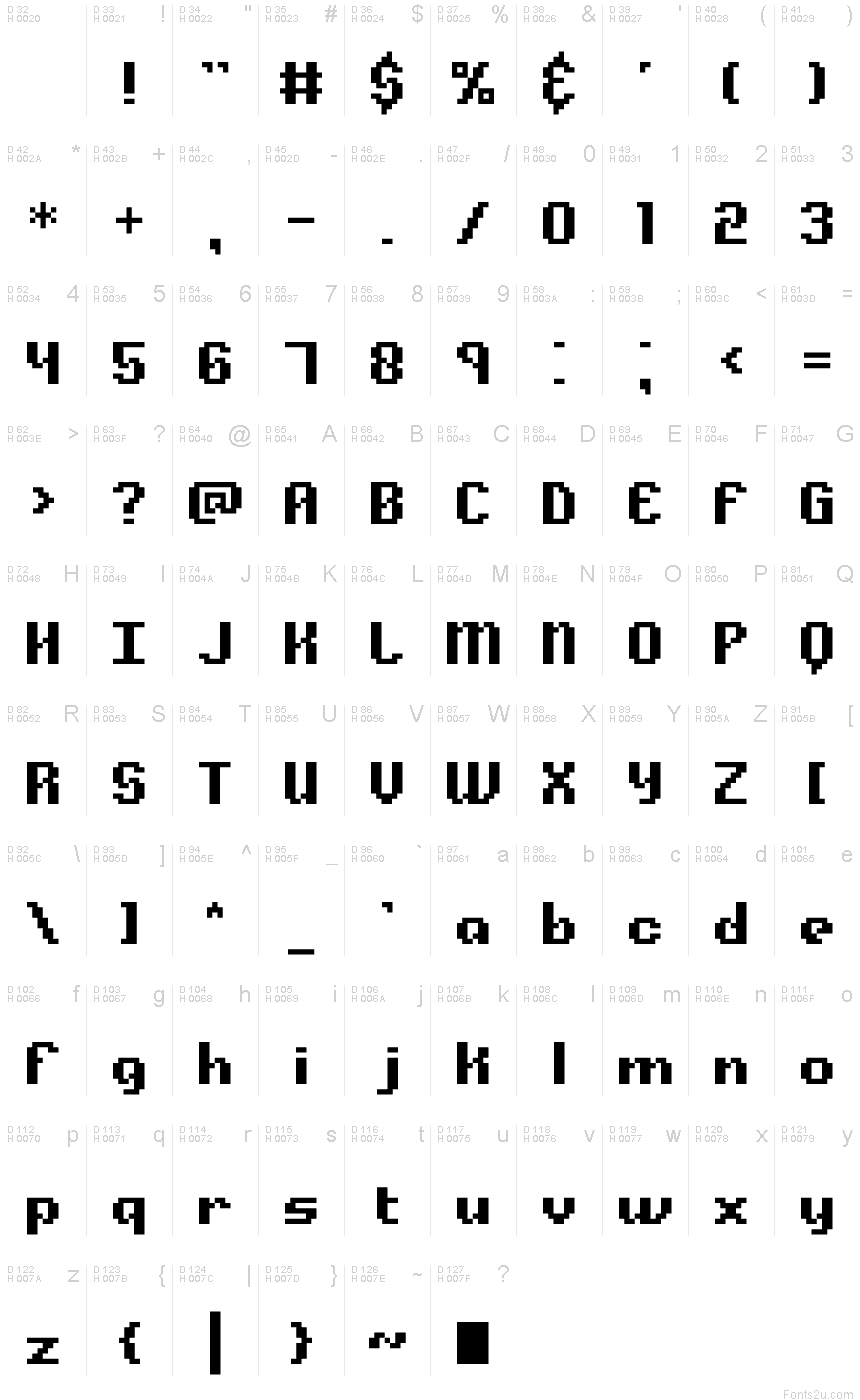
Alpha Beta BRK
Alpha Beta font by ÆNIGMA FONTS is a free pixel bitmap typeface with a wiry, glitchy rhythm that feels ripped from a hacked 8‑bit console. Its tall, spindly shapes and jagged curves stack into tight, blocky words that still read cleanly, even at tiny sizes. Letters look like they’re flickering on a worn CRT screen, giving your layouts an instant retro-tech mood without losing legibility.
Using Alpha Beta, you can push menus, game HUDs, stream overlays, vaporwave posters, zines, and lo-fi album covers into a sharper, more electric territory. This free font shines when you keep it bold, chunky, and high-contrast against dark backgrounds. Pair Alpha Beta with a simple monospaced sans for body text, and let its crackling pixel texture handle the logos, titles, and UI labels.